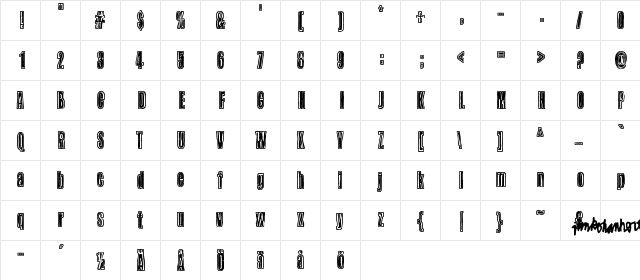
Buzz Aloha Regular Font Preview
Buzz Aloha Regular
Buzz Aloha Regular Font Details
Design Context for Buzz Aloha Typeface
Buzz Aloha is a composed and adaptable typeface that performs quietly and consistently across a wide range of design contexts.
Pro Tip: Use Buzz Aloha in both headline and body roles to test its range before committing to a single application.